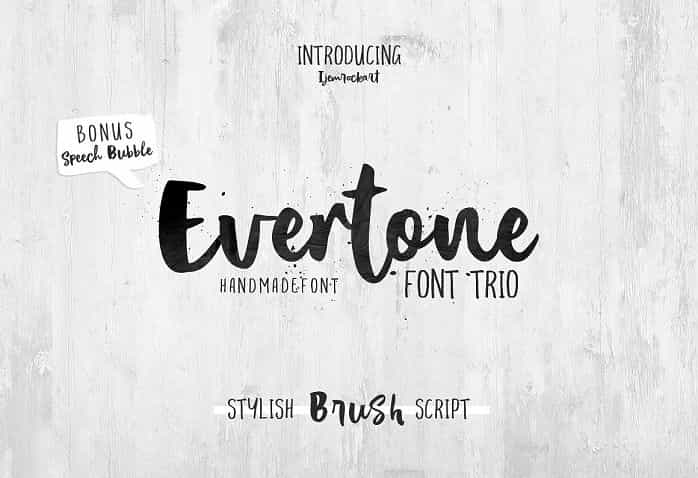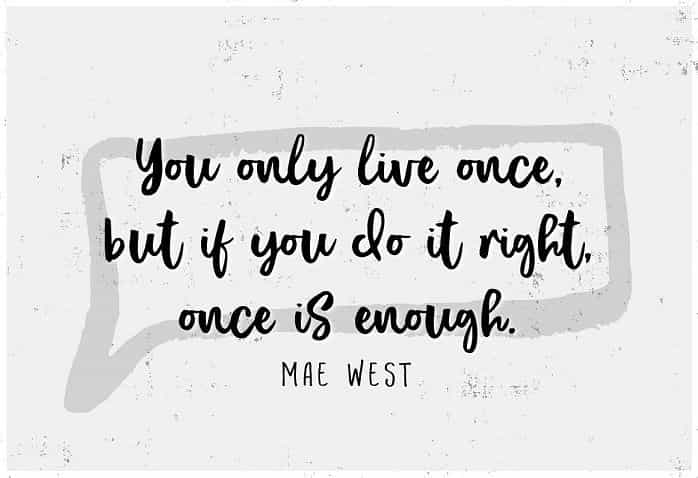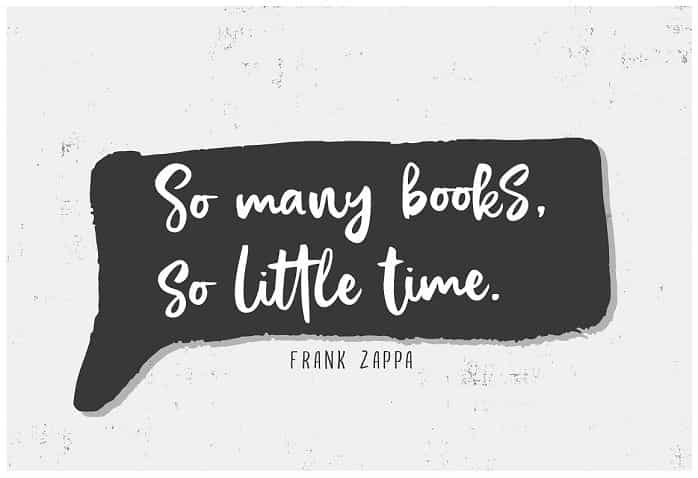
Introducing Evertone Font. Evertone is a handwritten typeface with authentic clean and bold imperfections, and very bouncy baseline. It has perfectly paired complimentary marker font as well as super handy set of bonus swash. It is the perfect font for logos, handwritten quotes, product packaging, headers, posters, merchandise and social media & greeting cards.